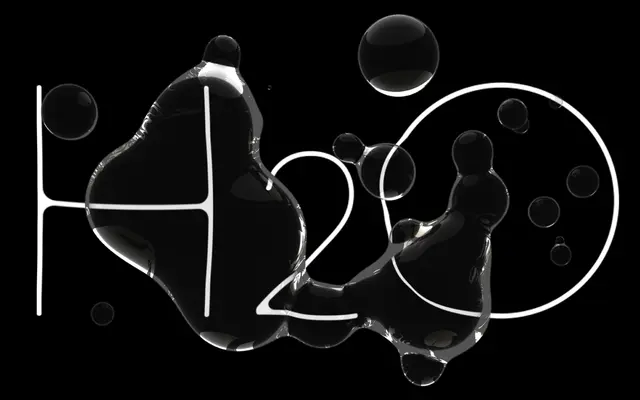
Aquawax FX
Zetafonts · Francesco Canovaro · 2022
A reworking of Zetafonts' own Aquawax that swaps inktraps for counter-inktraps, softening corners to produce a distinctly liquid, flowing appearance suited to display and identity work.
Designed by Francesco Canovaro and released in 2022, Aquawax FX departs from the 2008 original by introducing counter-inktraps — rounded inner and outer corners that create a watery visual quality while preserving the original terminal cuts. The family spans nine weights from Thin to Heavy with matching italics across two sub-families: the standard Roman and the stencil-influenced Space variant aimed at logos and science-fiction headings. Variable font versions are included with the full family package, and coverage extends to Latin, Greek and Cyrillic across 218 languages.
Aquawax FX is built on a geometric sans foundation derived from the original Aquawax, distinguished by counter-inktraps and softened contours that give it a fluid, watery character while retaining geometric construction.